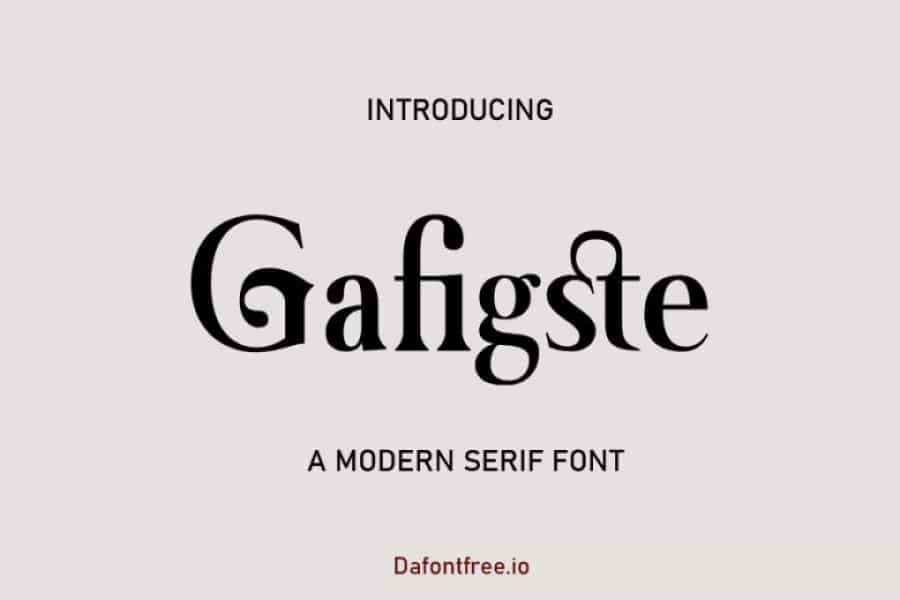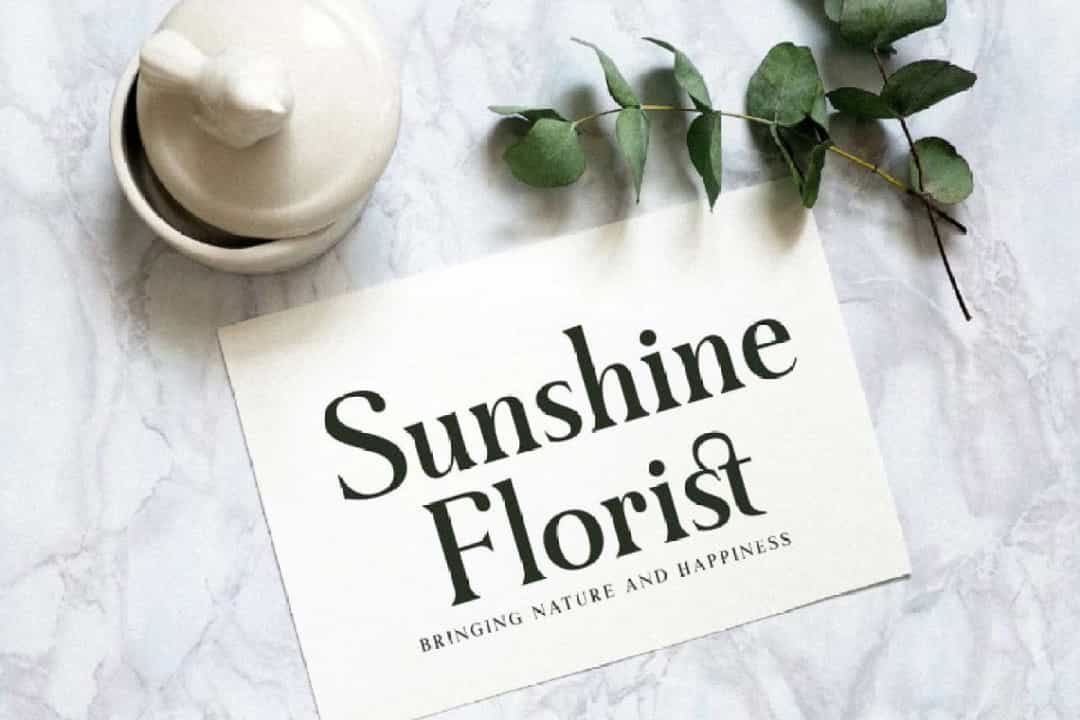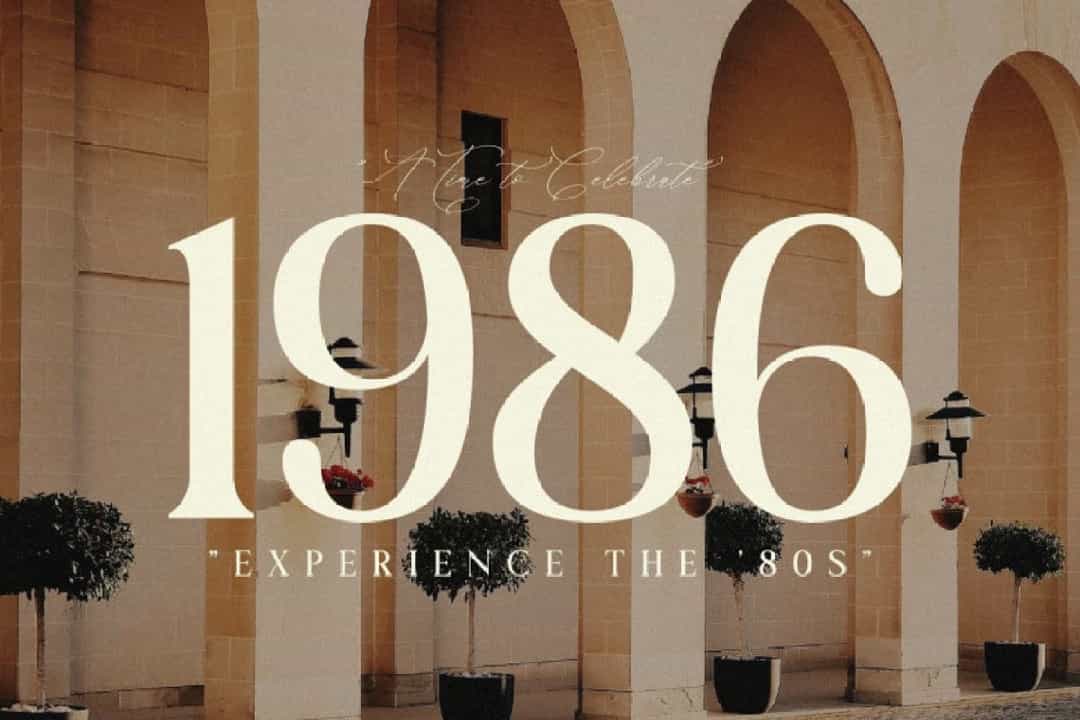
Gafigste Typeface by Storytype is an elegant yet contemporary serif font with its own distinctive style and feel, perfect for logos, book/film titles, fashion brands magazines clothing lettering quotes and much more. This font can make an outstanding impression when used for sophisticated and luxurious purposes such as luxurious logos book, film titles magazines clothing lettering quotes etc.